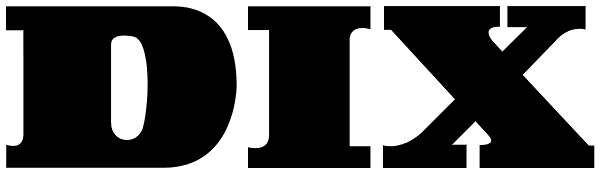
Dix
An offbeat not-quite-slab, not-quite-bracketed serif. And its extreme weight and width. Richard Dix started as a surgeon and turned out an actor, one of the lucky few who made a successful transition from silent film to talkies. In 1929 he made the...